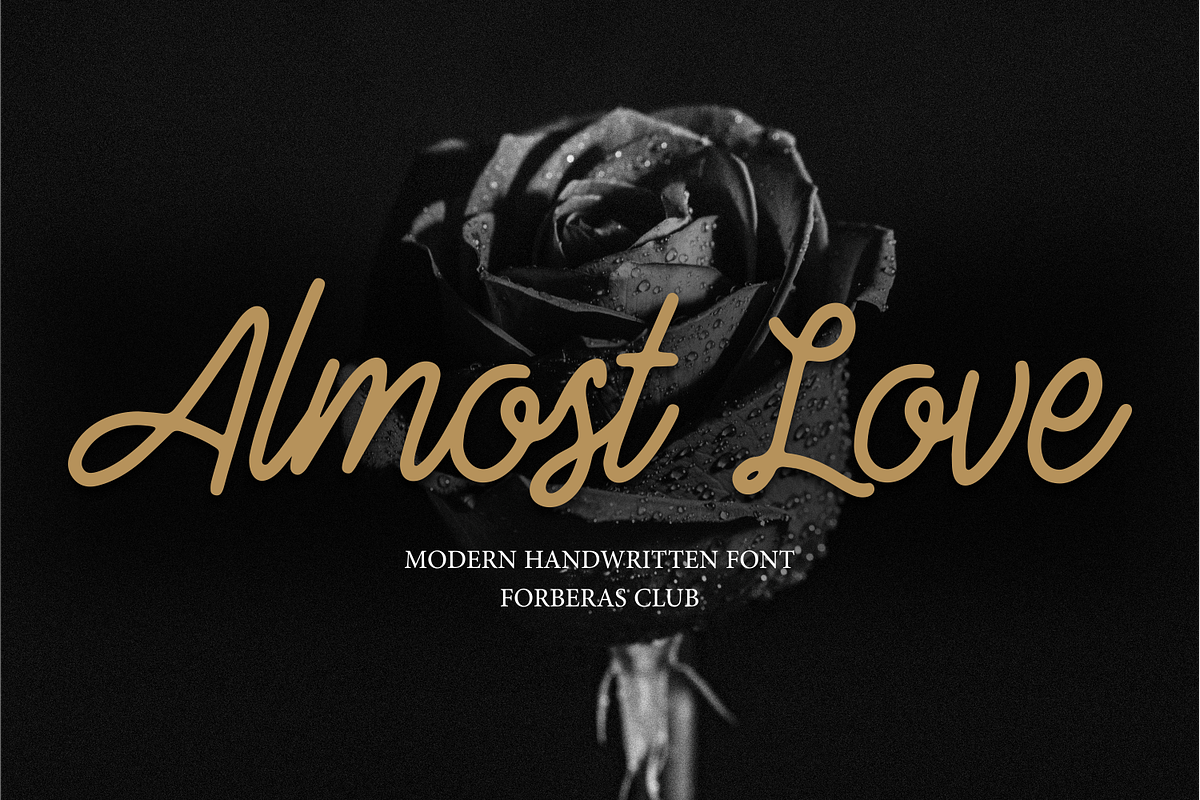
Almost Love | Handwritten Font Free Download
Almost Love Handwritten Font Free Download
Almost Love Handwritten Font Free Download is a charming and emotional script typeface that beautifully captures the essence of heartfelt handwriting. With its delicate strokes, natural rhythm, and romantic flair, this font is perfect for love letters, wedding stationery, branding, greeting cards, and lifestyle content.
Its smooth, flowing curves bring warmth and authenticity to every design. The font includes ligatures and stylistic alternates for a personalized, handwritten effect that feels intimate and expressive.